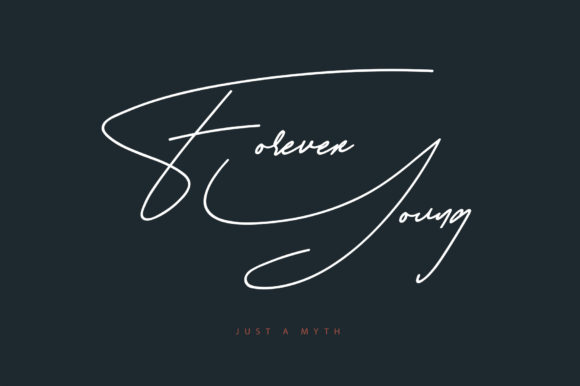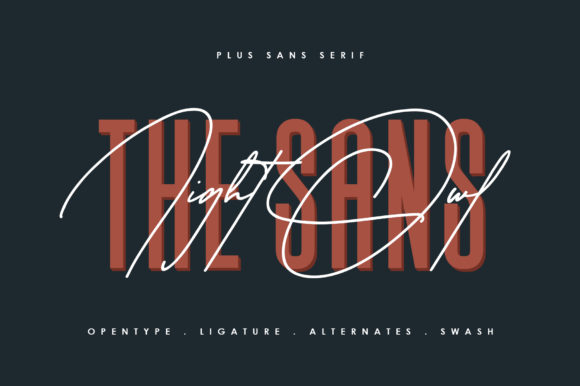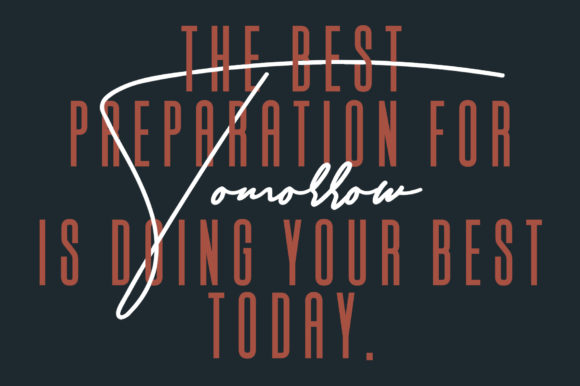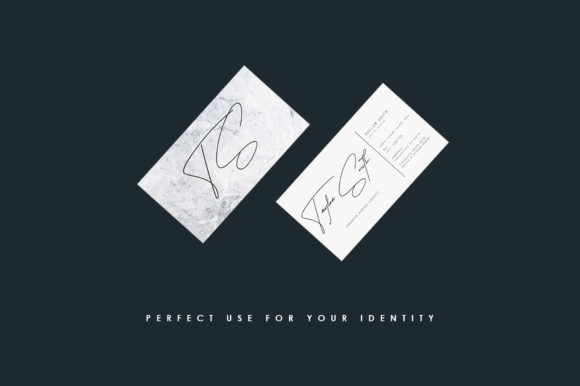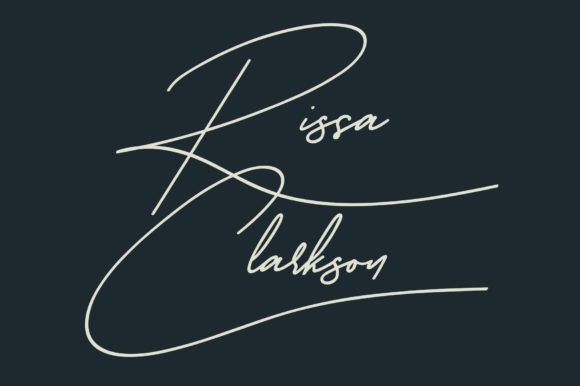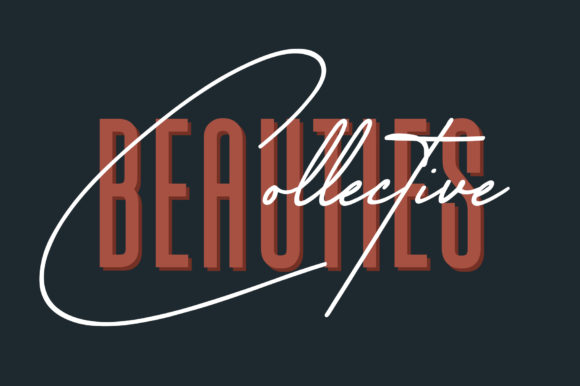
Introducing Amstonia Signature Font: Elevate Your Designs with Elegance
In the world of typography, fonts play a crucial role in bringing creative ideas to life. For designers, crafters, and anyone with a passion for visual storytelling, finding the right font can make all the difference. This is where Amstonia Signature Font comes into play – a stunning duo font that combines the simplicity of sans serif with the elegance of script, offering unparalleled versatility for a wide range of design projects.
The Amstonia Signature Difference
Amstonia Signature is not just another font; it’s a beautiful duo that includes both a sans serif and a script font, carefully crafted to complement each other perfectly. This unique combination allows designers to add depth, contrast, and a touch of sophistication to their work. Whether you’re designing a logo, a website, a brand identity, or any other creative project, Amstonia Signature offers the flexibility and elegance needed to elevate your designs to the highest levels.
One of the standout features of Amstonia Signature Font is its incredible versatility. This font duo can seamlessly fit into a wide pool of designs, from modern and minimalist to elegant and luxurious. The sans serif component offers a clean, crisp look that’s perfect for headlines, titles, and any design element where clarity and readability are key. On the other hand, the script font adds a touch of warmth and personality, ideal for adding quotes, descriptions, or any text that needs a more personal and elegant feel.
With Amstonia Signature, the possibilities are endless. Imagine adding this beautiful font to your favorite creative ideas and watching them transform into stunning visual stories. Here are just a few examples of how Amstonia Signature can bring your projects to life:
- Branding and Logos: Use the sans serif for your logo and the script for taglines or descriptions to create a memorable brand identity.
- Web Design: Combine both fonts for a website to achieve a balanced and visually appealing design that captures your audience’s attention.
- Stationery and Packaging: Elevate your business cards, letters, and product packaging with a sophisticated look that stands out.
- Digital Media: Whether it’s for social media graphics, presentations, or video subtitles, Amstonia Signature adds a professional and elegant touch.
Why Choose Amstonia Signature Font?
Choosing Amstonia Signature Font for your design projects comes with numerous benefits:
- Unique and Memorable: Stand out from the crowd with a font that is both unique and memorable.
- Ease of Use: The duo font is incredibly easy to use, even for those new to design.
- High Readability: Both the sans serif and script fonts offer high readability, ensuring your message is communicated clearly.
Amstonia Signature Font is more than just a typeface; it’s a tool that unlocks endless creative possibilities. Its combination of sans serif and script offers designers and crafters a versatile solution for elevating their designs. By incorporating Amstonia Signature into your projects, you’re not just choosing a font – you’re choosing to bring your creative ideas to life with elegance, sophistication, and a touch of uniqueness. So why wait? Add Amstonia Signature to your creative arsenal today and watch your designs reach new heights.